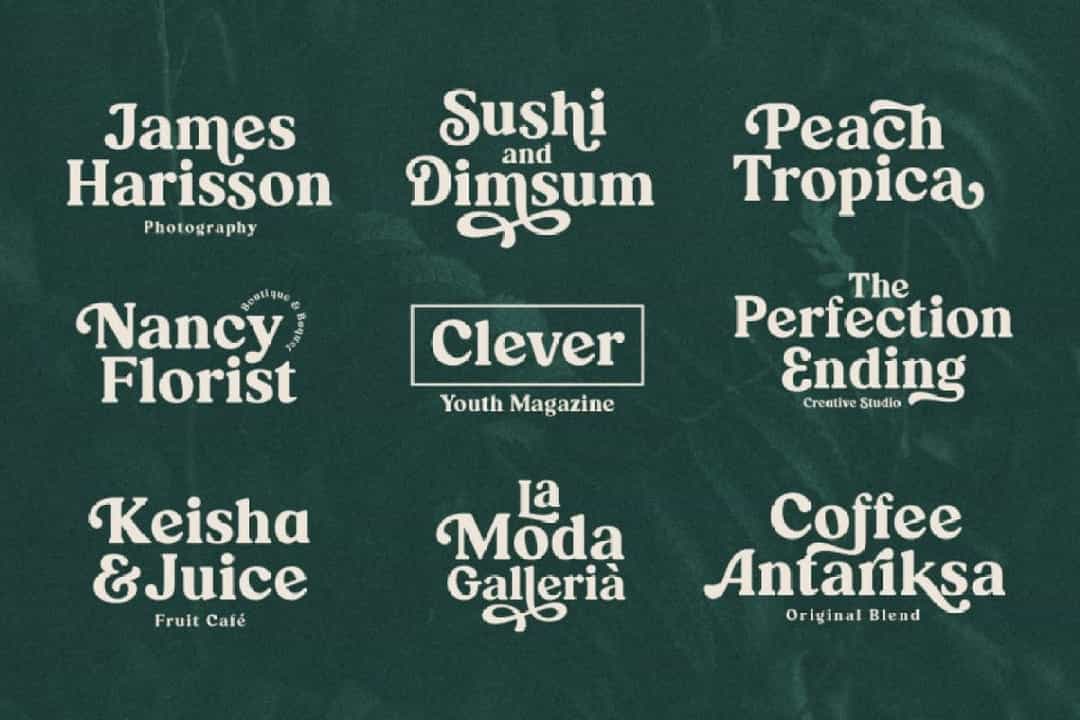
Ranille is a new style, modern, and beautiful Bold Serif Font. With more than 200 alternatives encoded in PUA, Ranille provides a lot of typographic effects suitable for display. This font is based on the retro curves of the 50-60s that were fashionable at the time and combined with modern design with an emphasis on the mass from its weighty nature, this font screams its presence when placed.